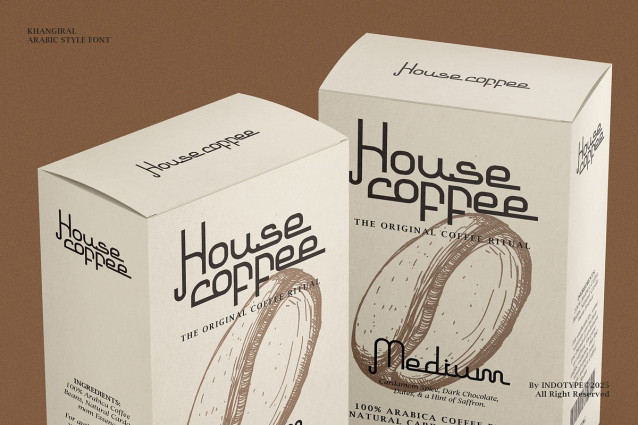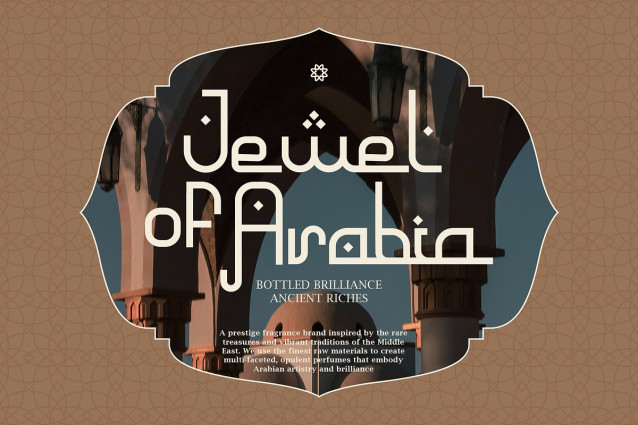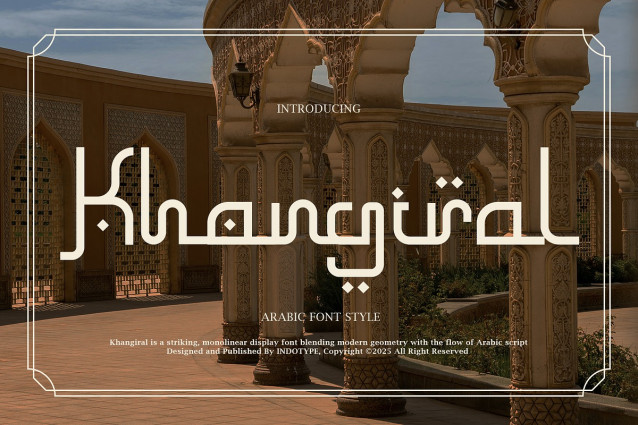
IT Khangiral Font is a striking and contemporary display font that masterfully merges clean, modern geometry with the elegant, flowing essence of Arabic script. Its monolinear construction—featuring consistent stroke weights—creates a sleek, minimalist aesthetic that is both globally sophisticated and culturally resonant. This unique blend results in a typeface that feels fresh, approachable, and distinctly modern, while paying homage to traditional calligraphic forms. Perfect for branding that seeks a cosmopolitan edge, Khangiral excels in logos, packaging, editorial headlines, and digital interfaces. Its geometric clarity ensures legibility and impact at any size, while its inherent flow adds a touch of organic warmth. Khangiral is the ideal choice for projects that aim to bridge cultural aesthetics with a forward-thinking, clean design philosophy.